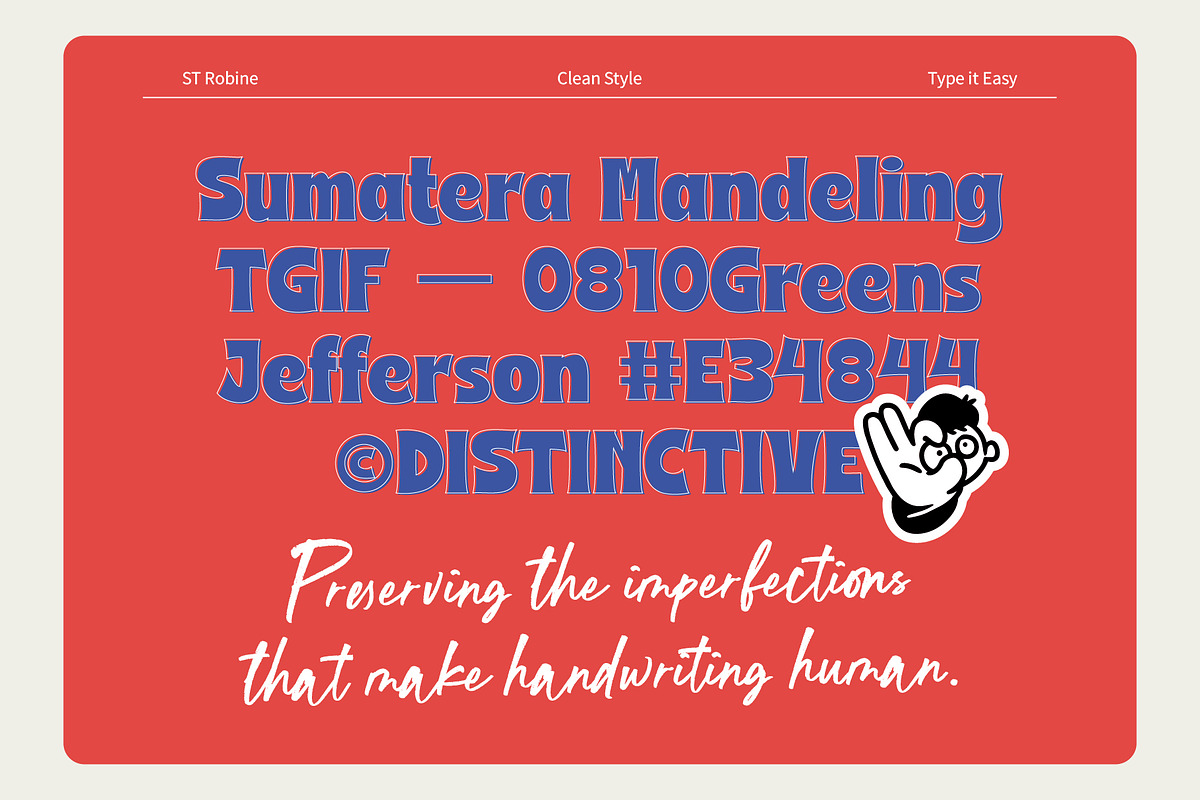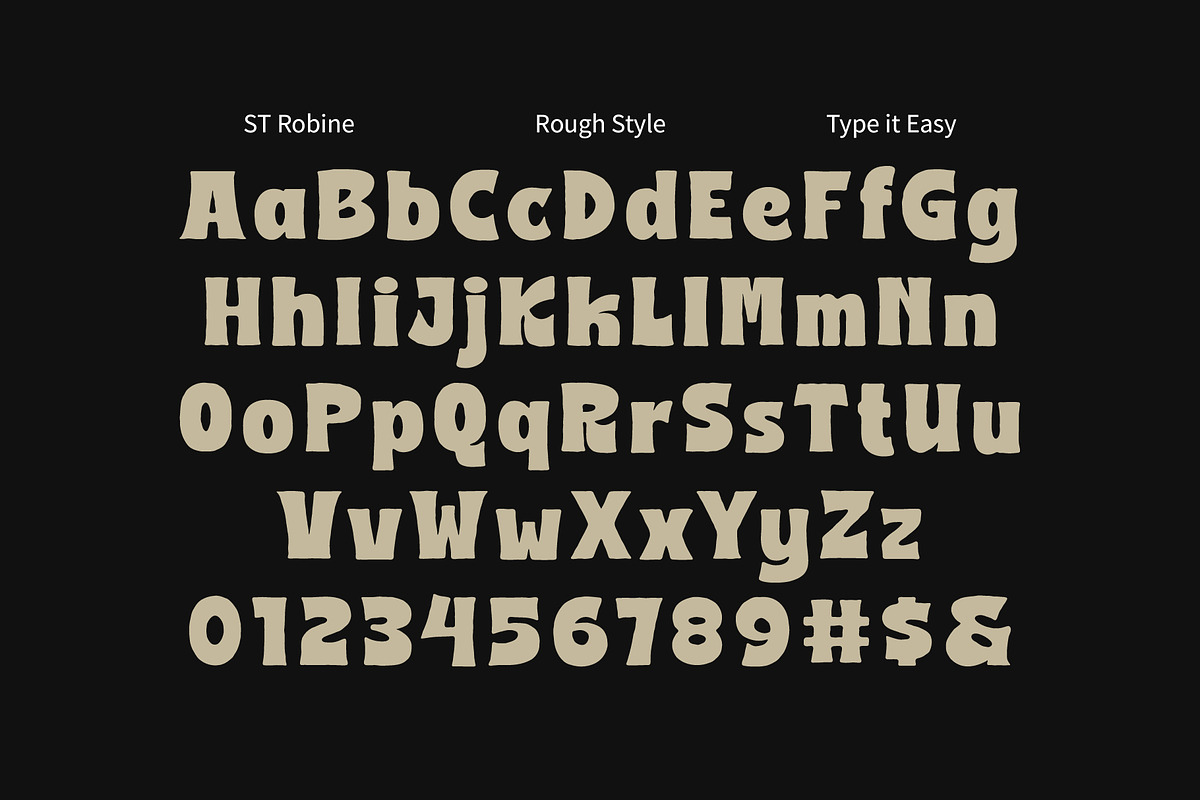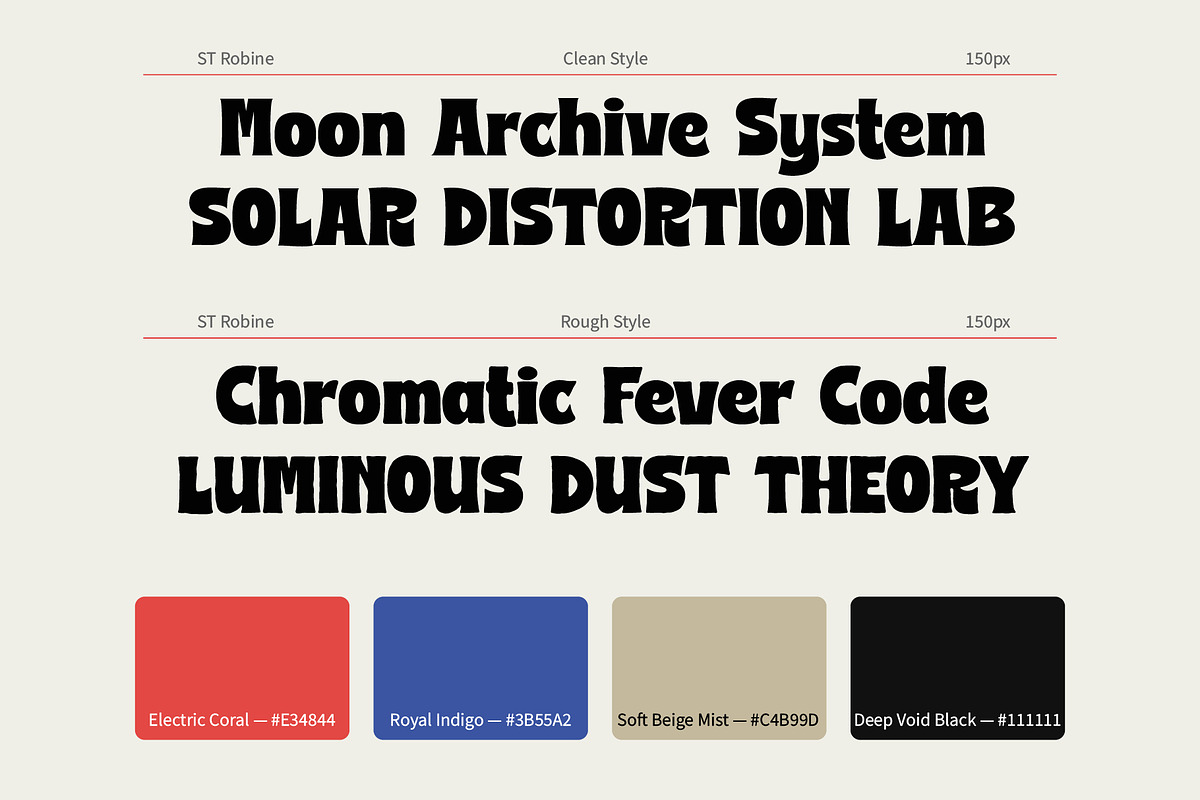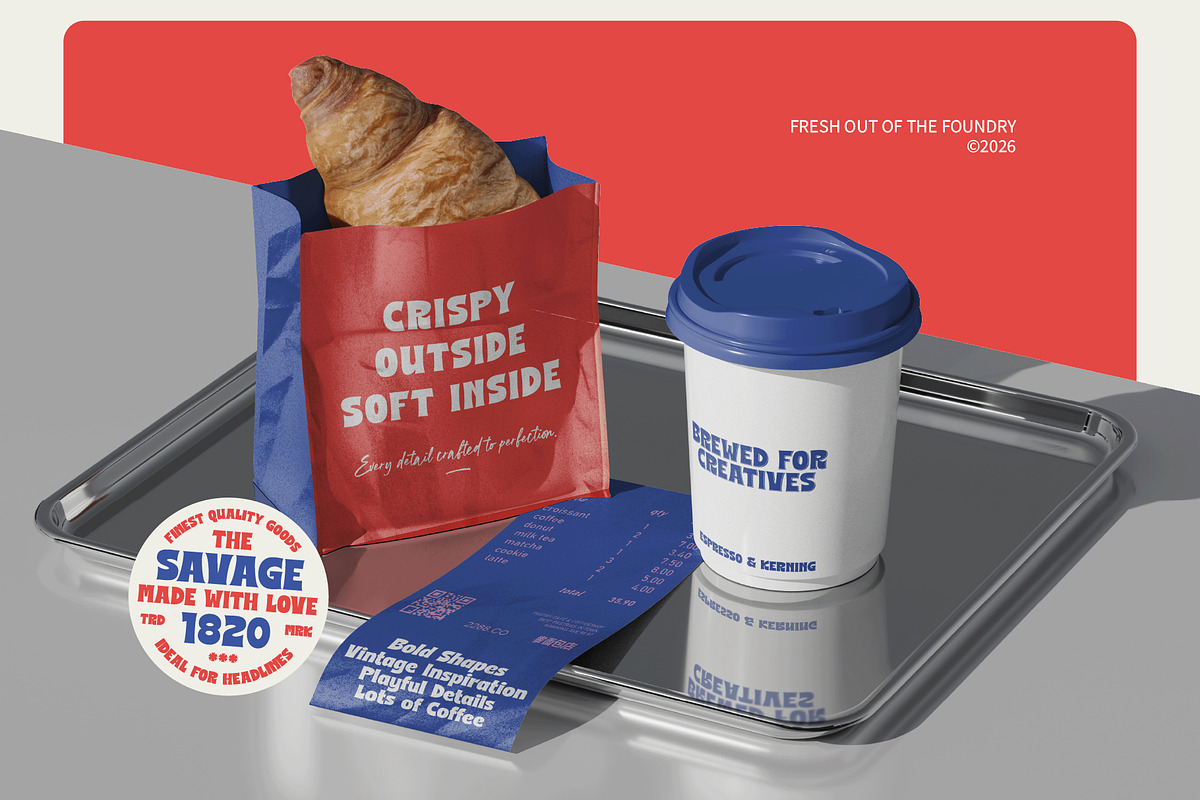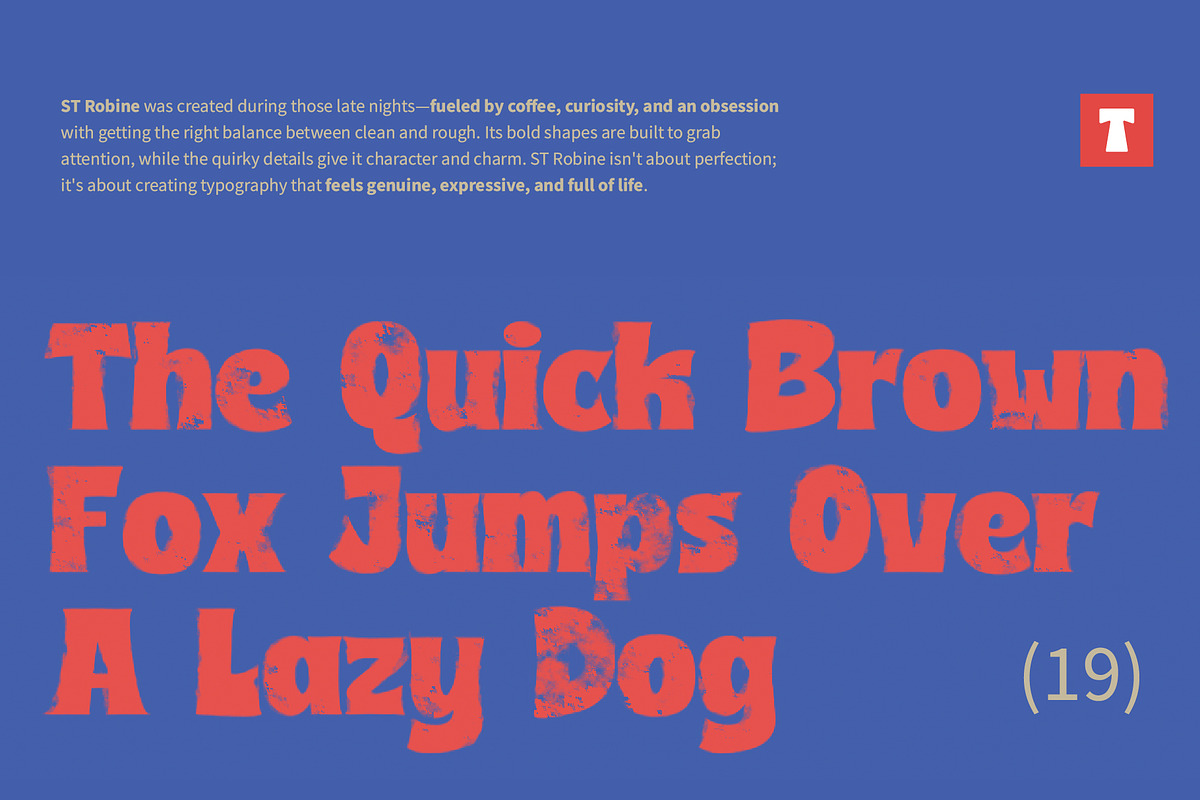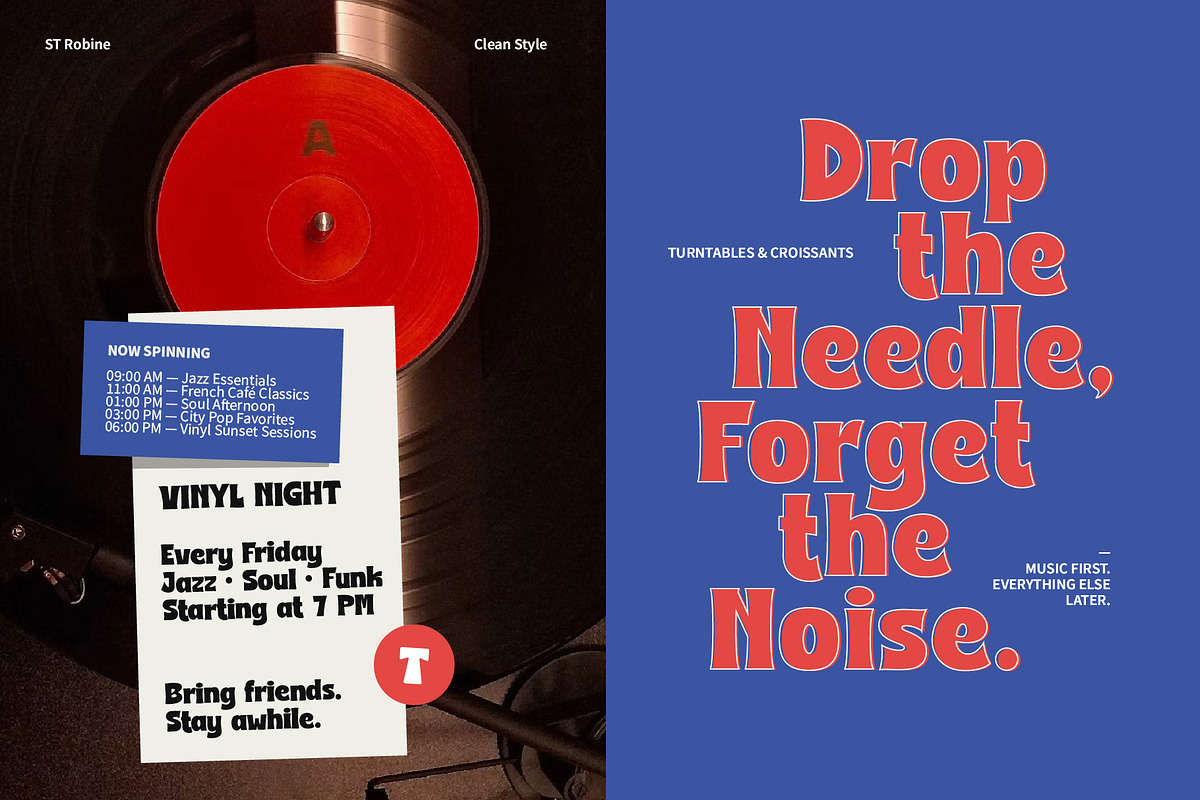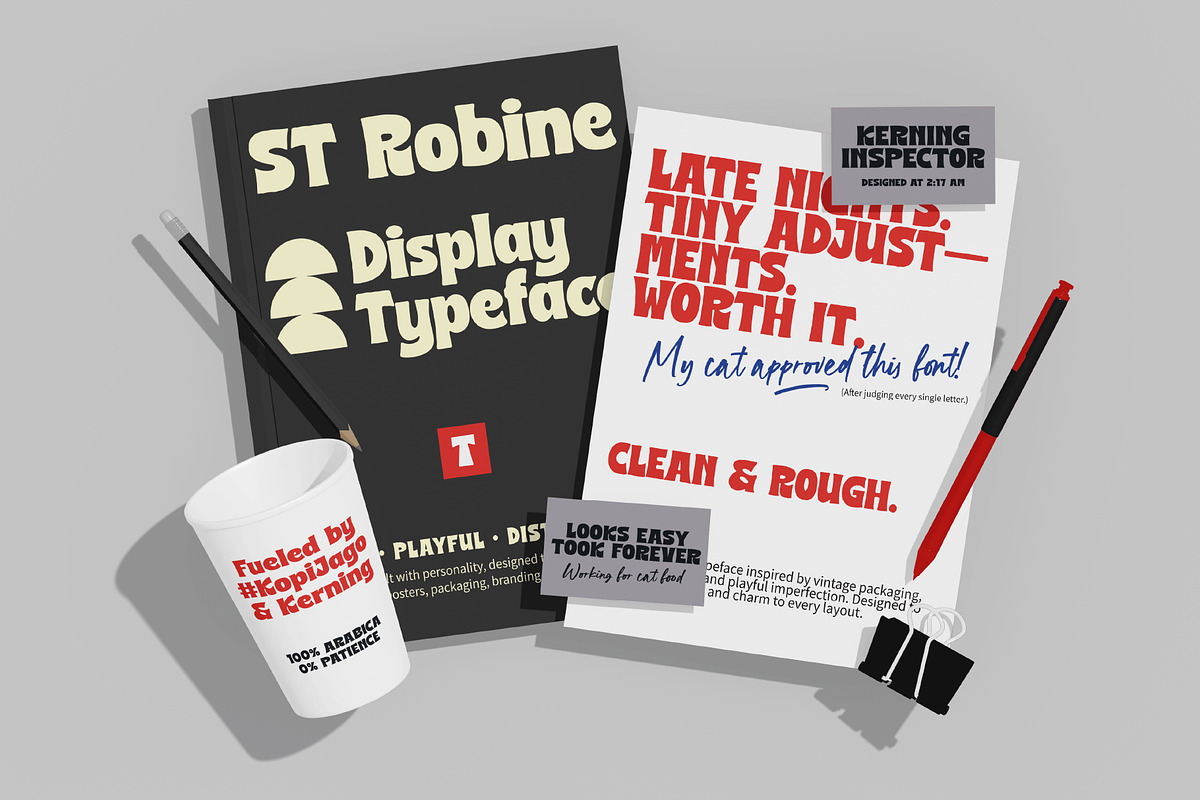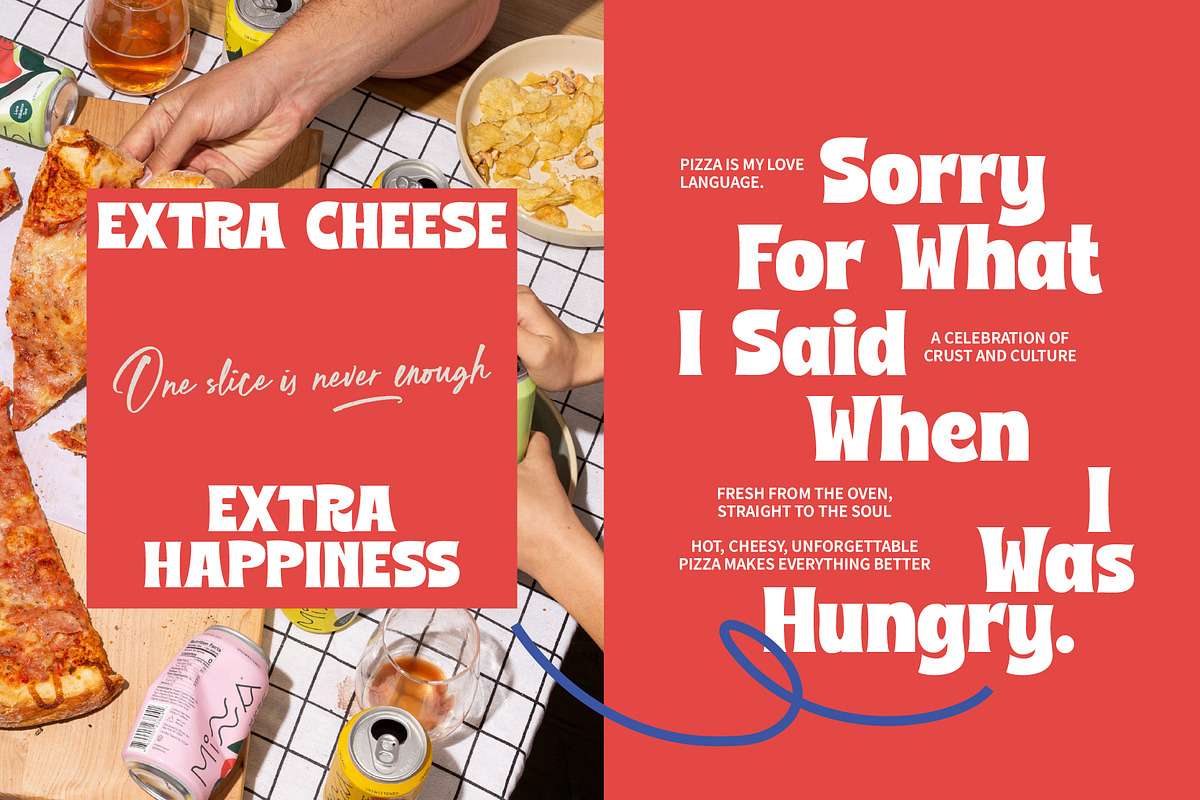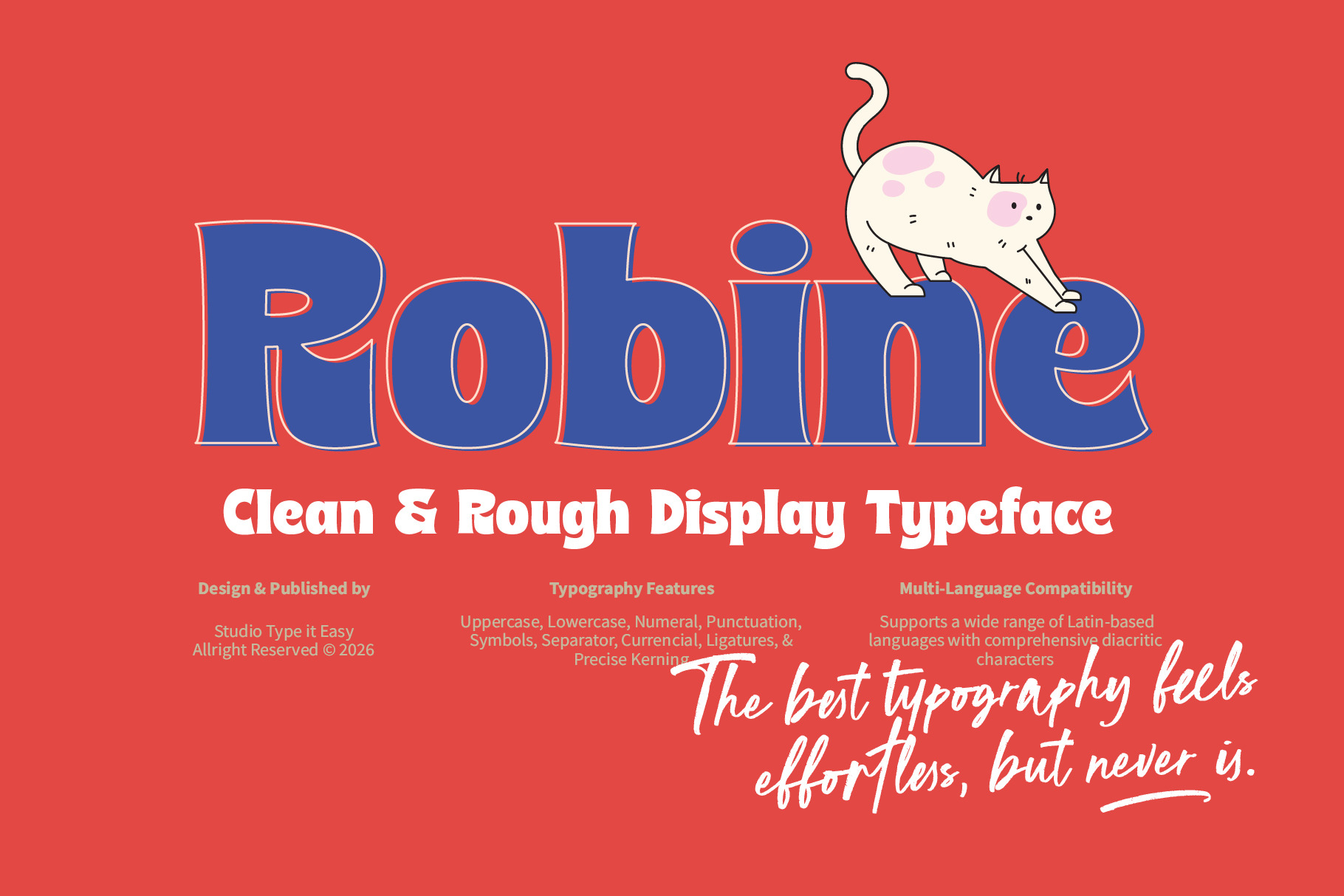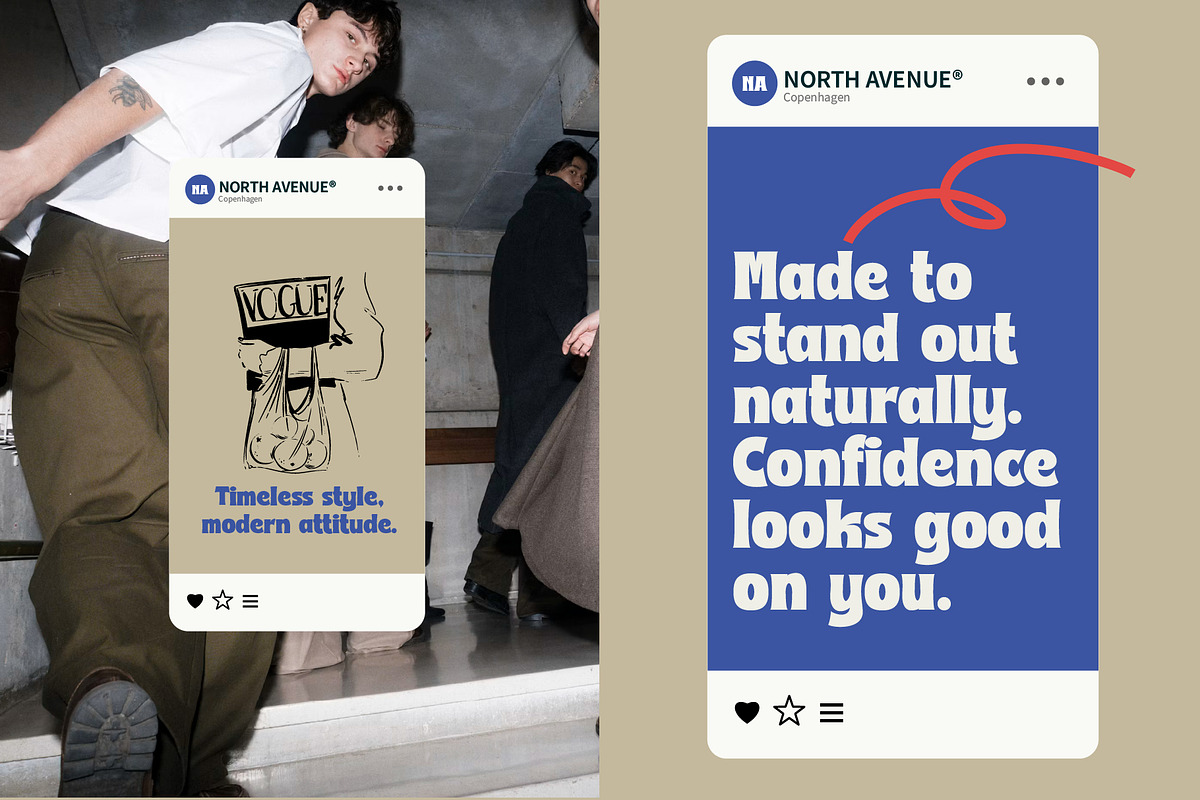
ST Robine - Display Font
Clean & Rough Display Typeface
ST Robine is a bold and playful display typeface that combines clean letterforms with subtle rough details, creating a look that feels handcrafted, warm, and full of personality.
Designed to make a strong impression without losing readability, ST Robine brings a charming balance between polished structure and organic imperfections. Whether you're creating packaging, branding, posters, social media graphics, or product labels, this typeface helps your designs feel approachable, memorable, and uniquely human.
Inspired by vintage packaging, neighborhood signage, and the beauty of imperfect craftsmanship, ST Robine delivers expressive headlines that instantly capture attention.
From food brands and children's products to creative studios and lifestyle businesses, ST Robine is built to bring character and confidence to every project.
Why Choose ST Robine?
Unique clean-and-rough aesthetic that feels handcrafted yet refined
Strong display presence for impactful headlines and branding
Carefully crafted spacing and kerning for professional results
Versatile across print and digital applications
Designed to create memorable and approachable brand experiences
Includes multilingual support for wider audience reach
Branding & Visual Identity
Food & Beverage Branding
Children's Products
Café & Bakery Branding
Posters & Headlines
Merchandise Design
Editorial Layouts
Product Labels
Creative Advertising Campaigns
Greeting Cards
Quote Designs
Website Headers